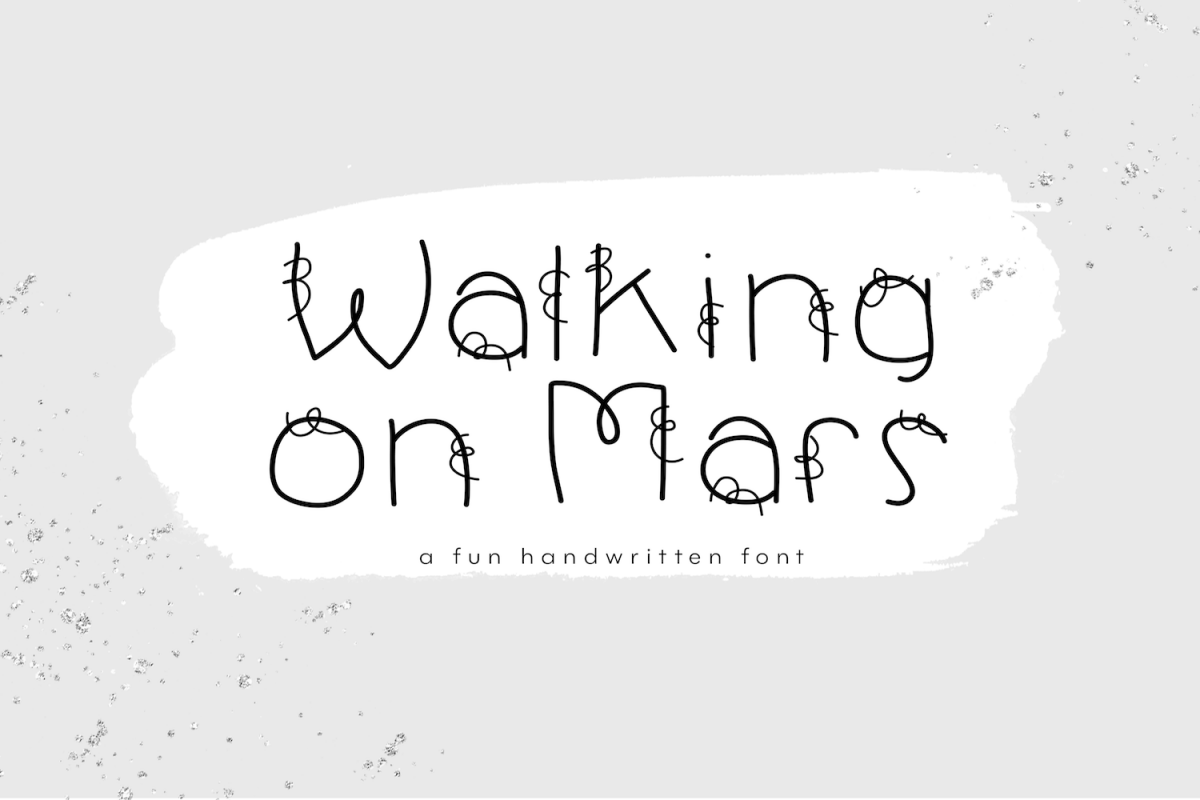
Walking on Mars - A Fun Handwritten Font
Walking on Mars is a fun handwritten font.
This font is great for large print, branding, names, headings, blogs, logos, invitations and more!